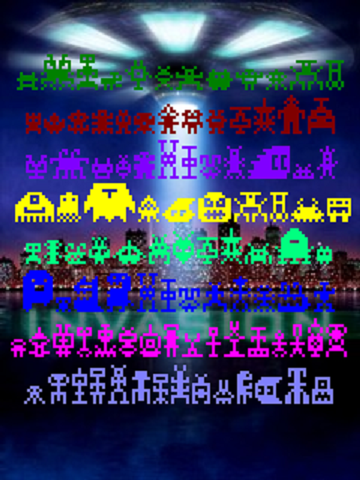
funky little critters. nice.
it's rather like urbar art.. 10/10
Preety little shaggy monsters!
@Adien: You know what it really does look urban. I didn't notice lol.